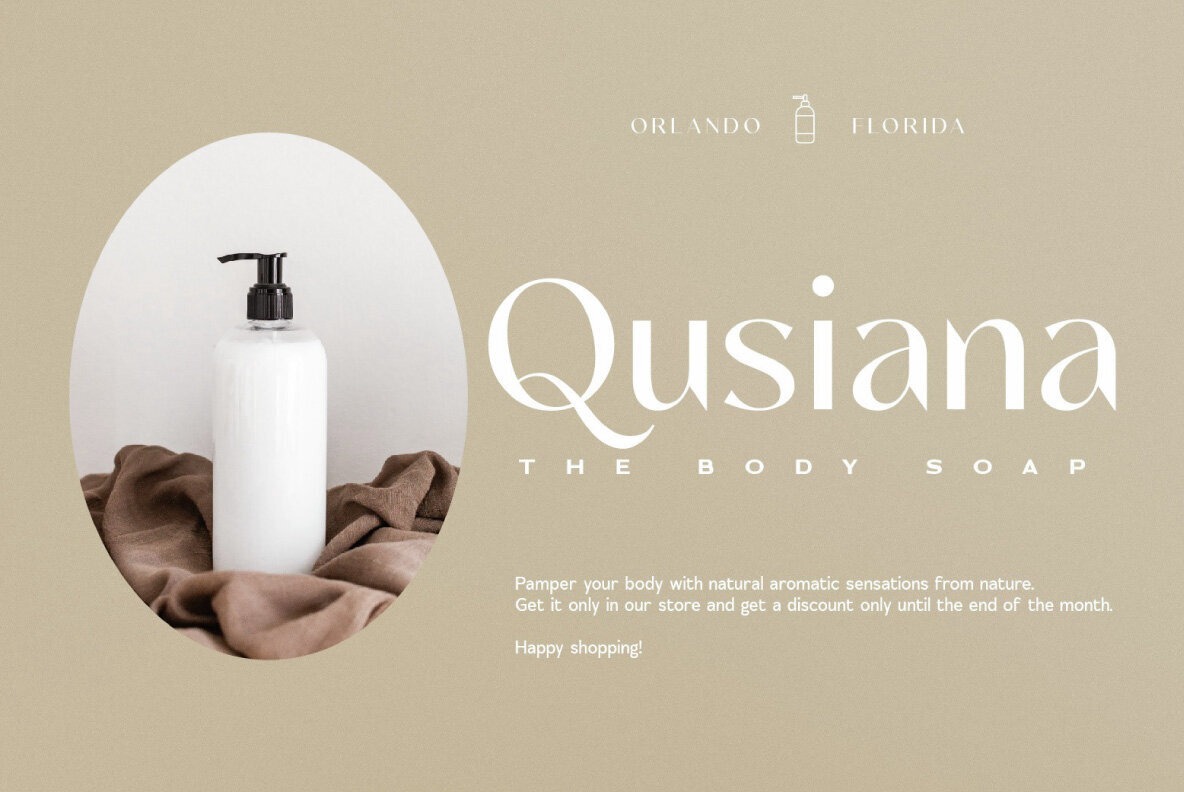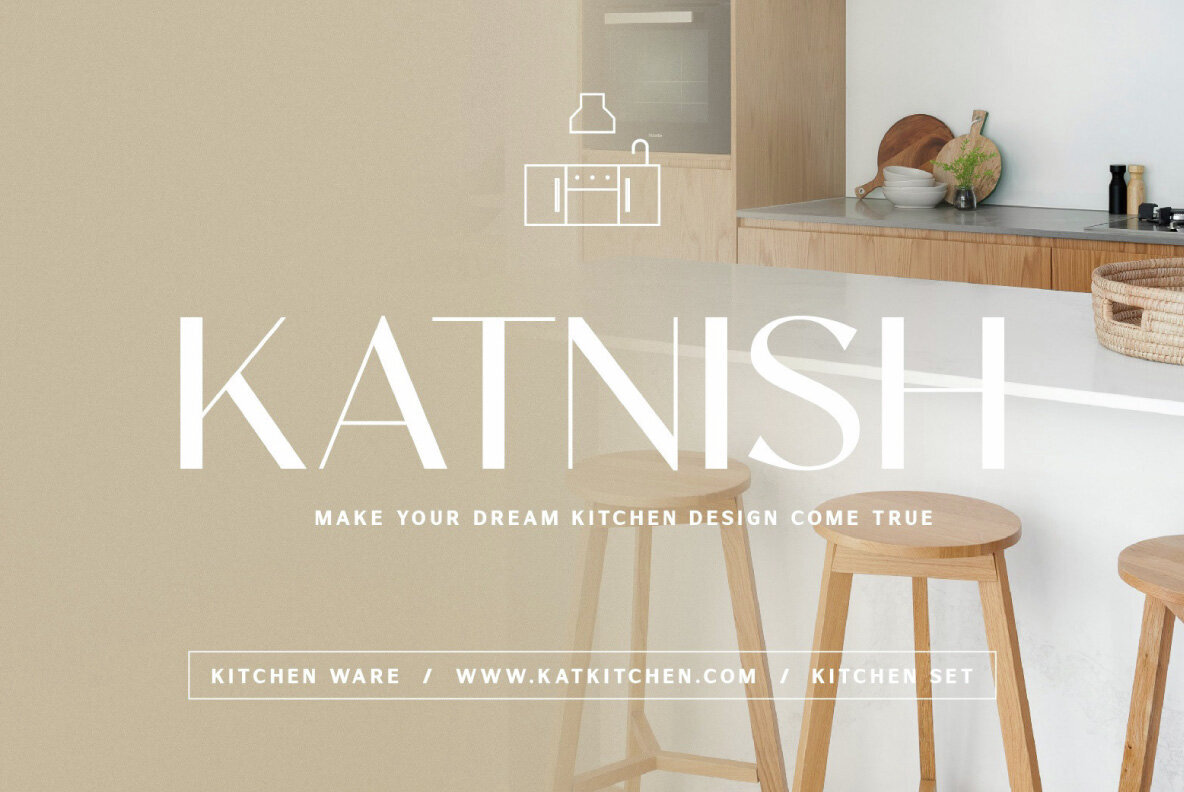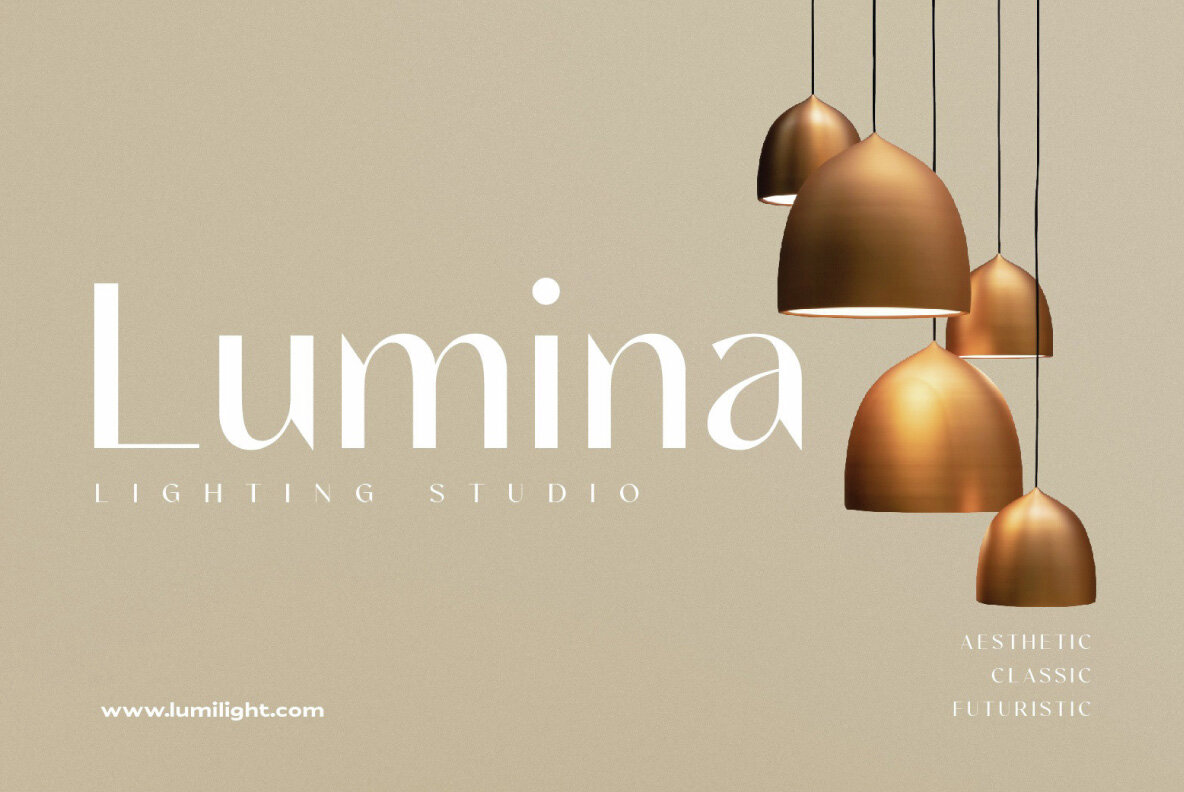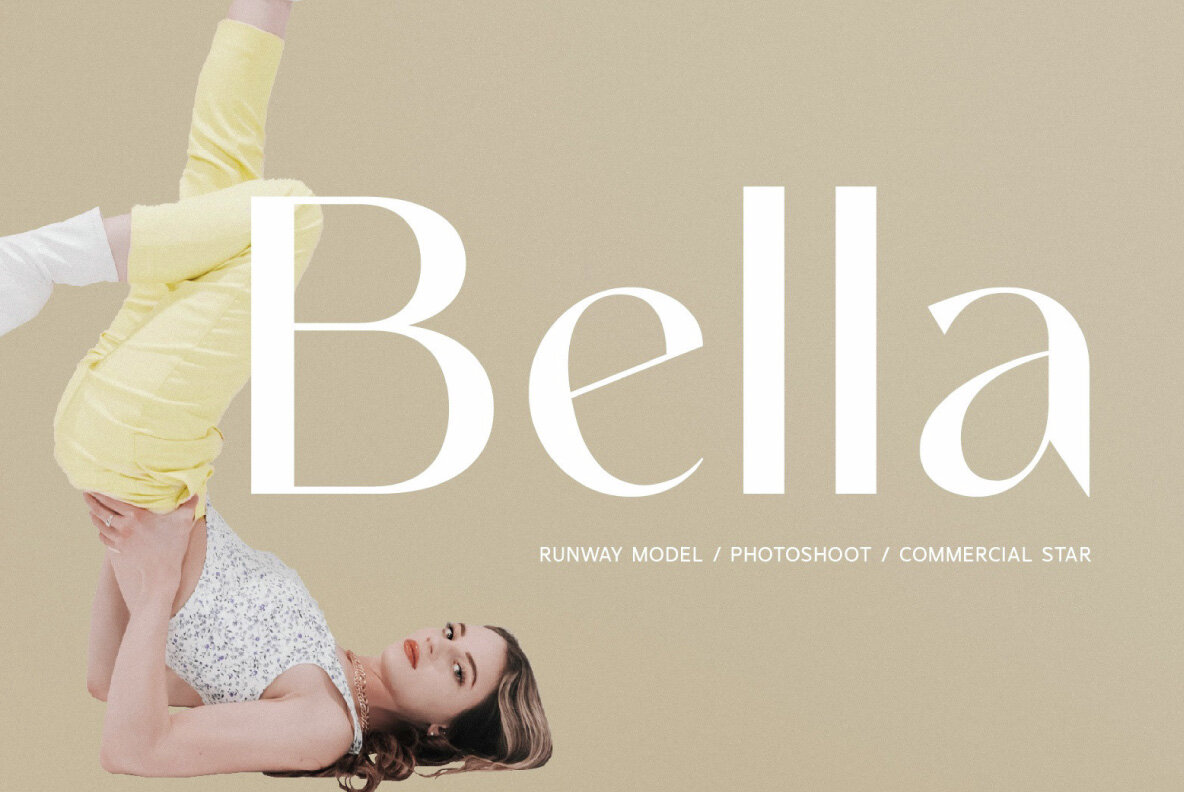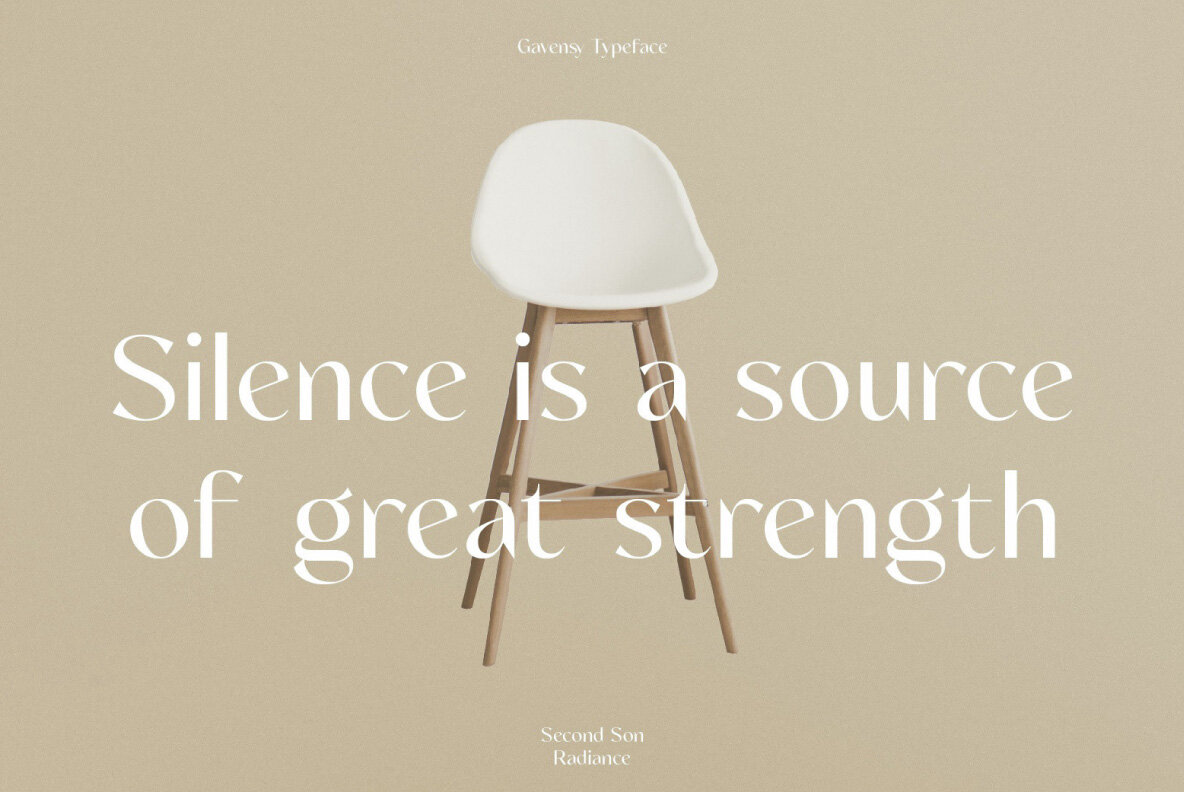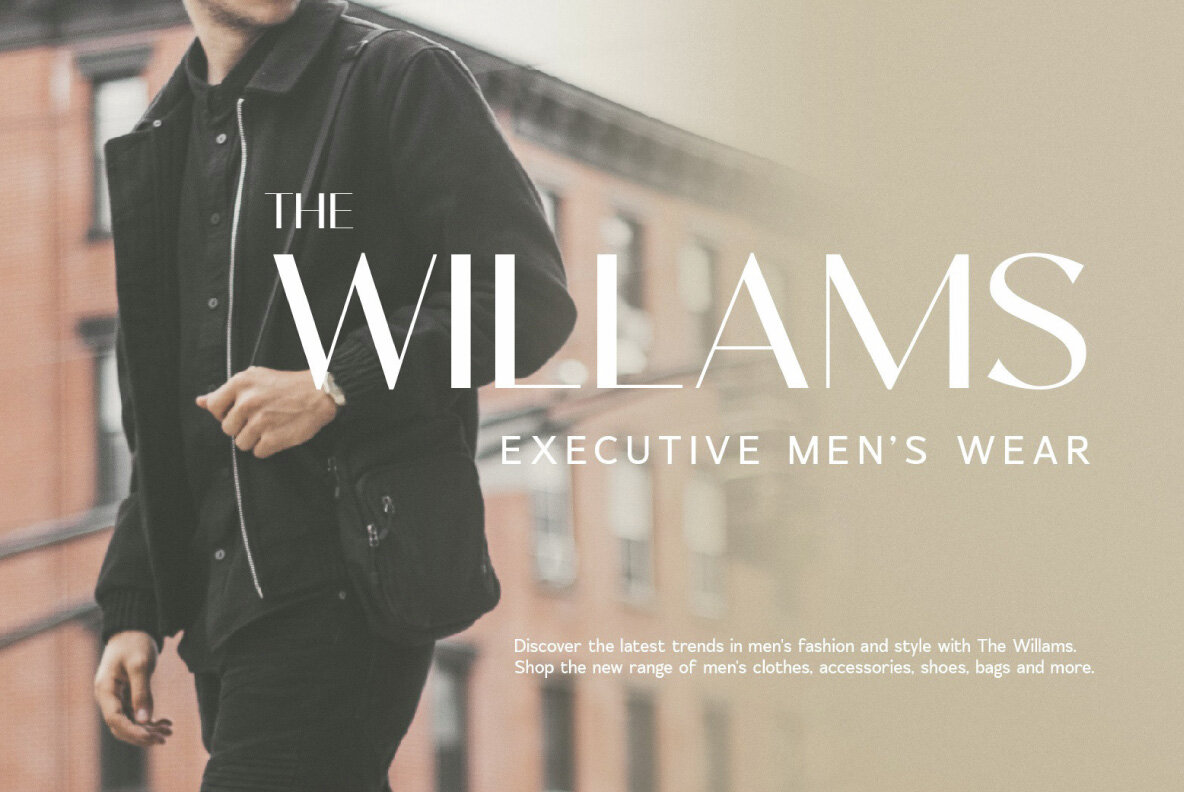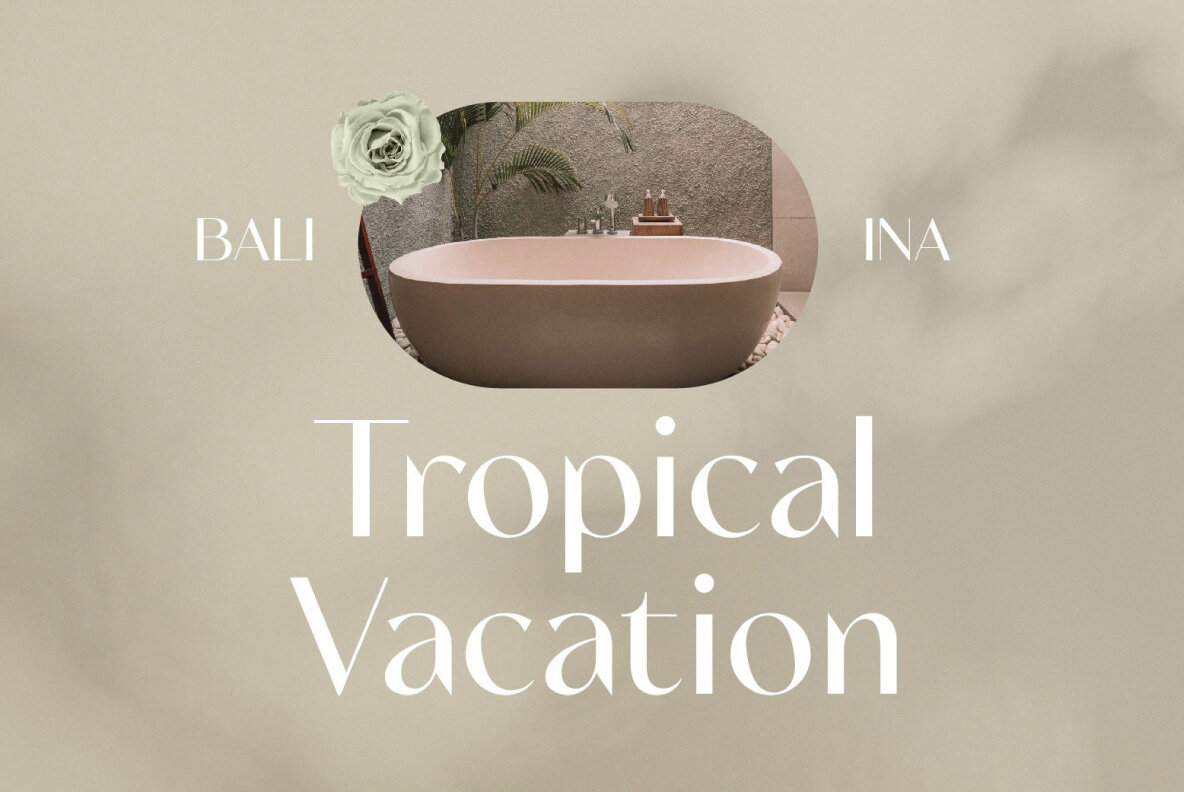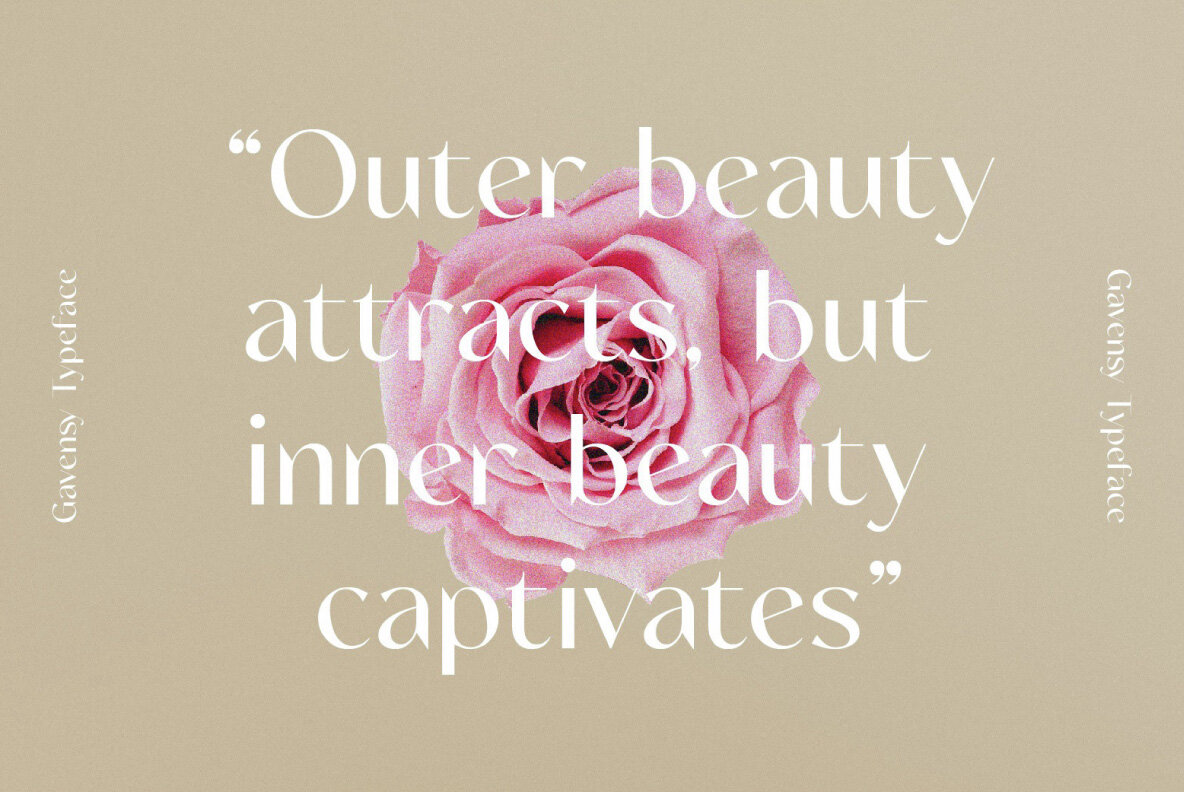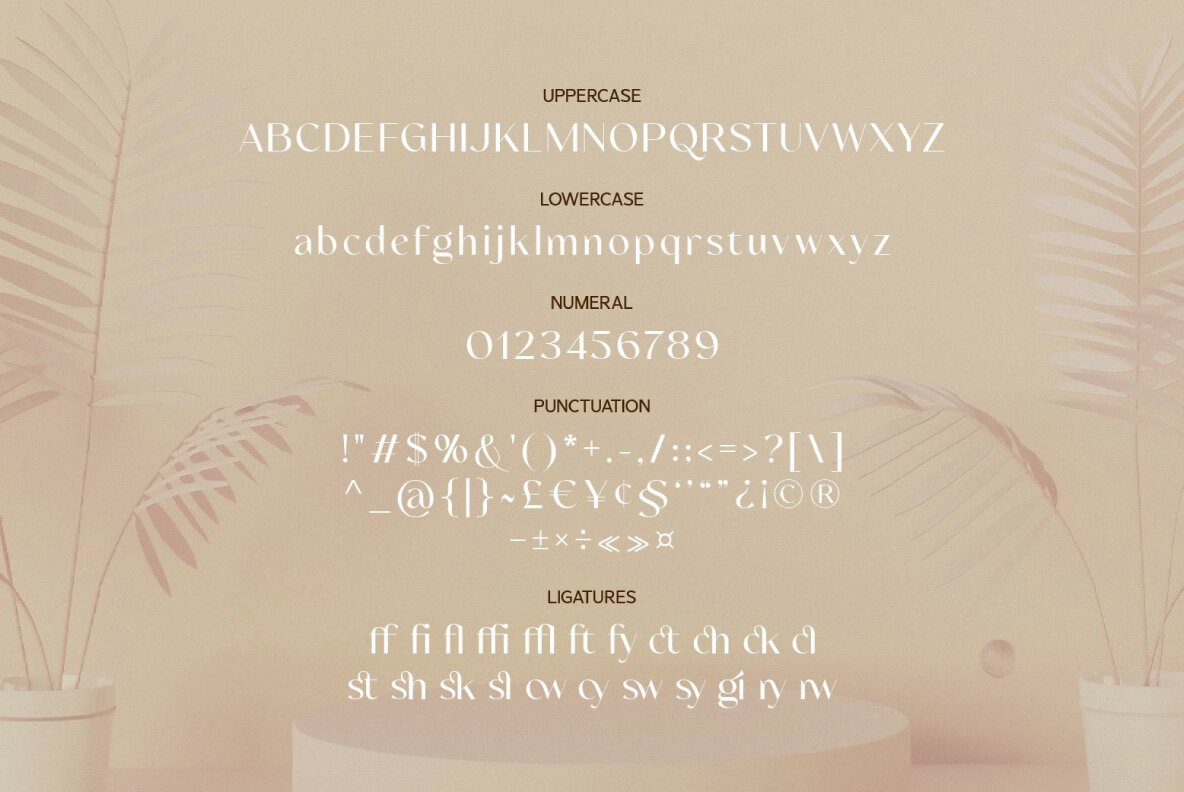
SS Gavensy Font
Gavensy Regular
Gavensy is a sophisticated sans serif font designed for projects that demand elegance and charm. Its fashionable touch makes it ideal for luxury and feminine visual designs. This versatile typeface suits a wide range of design applications, including logos, branding, modern advertising, holiday and travel themes, fashion and music projects, animation or movie titles, quotes on posters, book covers or fantasy novel titles, editorial layouts, websites or blogs, and cards.
This font comes with a variety of features to enhance your design work. It includes basic Latin alphabet (A-Z, a-z), numbers, and punctuation marks. In addition, Gavensy offers ligatures and Opentype features to provide more design flexibility. With PUA encoding and multilingual support, Gavensy ensures compatibility and accessibility for diverse user needs. Its blend of functionality and style makes it an excellent choice for both casual and professional projects.